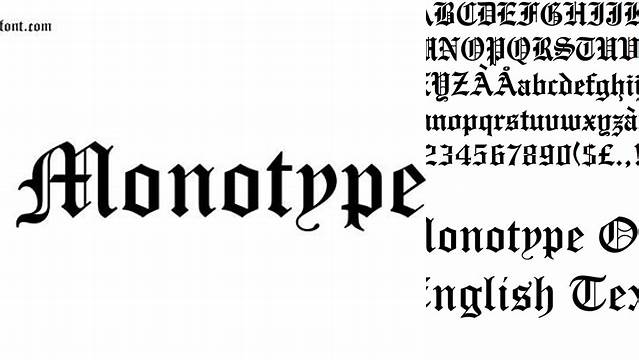
Let's dive into the world of Old English Monotype font, guys! This font is a classic, known for its elegant and historical feel. It's perfect for adding a touch of sophistication to your projects. Whether you're working on invitations, posters, or even branding, understanding where to find it for free and how to use it effectively is super important. We're going to explore everything you need to know, from its history to practical applications. So, buckle up and let’s get started!
Monotype Old English Font: What Makes It Special?
What sets Monotype Old English apart? Well, it's the attention to detail and the historical accuracy that Monotype brings to the table. This isn't just another generic Old English font; it’s a carefully crafted typeface designed to evoke a specific era. Understanding its nuances can help you use it more effectively. From the weight of the strokes to the curves of the letters, every element is designed with purpose. We’ll look at some of these details and how they contribute to the overall aesthetic. Using Monotype Old English can instantly add a sense of history and gravitas to your designs, making it ideal for projects that require a touch of tradition and elegance. The font's distinctive look makes it a popular choice for certificates, formal invitations, and even branding for businesses that want to convey a sense of heritage and quality. When used correctly, it can elevate your design and give it a unique and memorable appeal.
Old English Monotype Calligraphy: Mastering the Art
Want to take your Old English Monotype font skills to the next level? Why not try calligraphy? This section will introduce you to the basics of Old English calligraphy and how to achieve that beautiful, hand-lettered look. We'll cover the tools you need, the techniques to master, and some tips for practicing. While calligraphy takes time and patience, the results are well worth the effort. Imagine creating stunning invitations, personalized cards, or even framed artwork using your newfound skills. Start with basic strokes and gradually work your way up to more complex letterforms. Using guidelines and practice sheets can help you maintain consistency and accuracy. Experiment with different pen nibs and inks to find the style that suits you best. Calligraphy is not just about writing; it's about creating art with letters. So, take your time, be patient, and enjoy the process of mastering this beautiful and timeless art form.
Free Old English Fonts for Commercial Use
Looking to use free Old English fonts for your business? This section is crucial. We'll dive into finding fonts that are licensed for commercial use, so you don't run into any legal issues. We'll discuss what to look for in a font license and where to find fonts that allow you to use them in your logos, marketing materials, and other commercial projects. Remember, just because a font is free doesn't mean you can use it for anything. Always check the license agreement to ensure you are complying with the terms. Websites like Font Squirrel and Google Fonts offer a variety of fonts with commercial licenses. Before downloading, carefully review the license details to ensure it covers your intended use. Some licenses might require you to credit the font designer, while others might have restrictions on modifying the font. Using fonts legally protects you from potential legal issues and ensures you are respecting the rights of the font creator. When in doubt, it's always best to obtain a commercial license to ensure you have the freedom to use the font in any way you need for your business.
Old English Monotype Font Alternatives
Maybe Old English Monotype font isn't quite what you're looking for? No problem! We'll explore some similar fonts that offer a similar aesthetic but with their own unique twists. These alternatives can be great if you're looking for something a little different or if you can't find a free version of Old English Monotype that meets your needs. We'll cover a range of fonts, from those that are very similar to those that offer a more modern take on the classic Old English style. Consider fonts like Gothica, Cloister Black, or Blackletter for similar styles. Each of these fonts has its own unique characteristics that can add a different flavor to your design. Gothica, for example, is known for its bold and dramatic letterforms, while Cloister Black offers a more refined and elegant look. Blackletter fonts, in general, are a great alternative if you're looking for a font with a historical feel. Experiment with different fonts to find the one that best suits your project and your personal style. Remember, the key is to choose a font that is both visually appealing and readable, ensuring your message is clear and effective.
Old English Font Monotype: Pairing with Other Fonts
Tips for Using Old English Monotype Font Effectively
To maximize the impact of Tips for Using Old English Monotype Font Effectively, it's essential to follow a few key guidelines. This section will provide practical tips and advice on how to use the font in a way that is both visually appealing and effective in conveying your message. We'll also discuss common mistakes to avoid and best practices for font selection and usage. Use the font sparingly, focusing on headings or important details. Pair the font with a simple, clean sans-serif font for body text. Choose a font size that is appropriate for the context and ensures readability. Adjust the spacing between letters and lines to create a visually appealing and balanced design. Use color to highlight the font and make it stand out. Avoid using overly ornate or complex versions of the font, as they can be difficult to read. Ensure that the font is legible at different sizes and in different contexts. By following these tips, you can use Old English Monotype effectively and create designs that are both beautiful and impactful. Remember, the key is to use the font judiciously and in a way that complements the other design elements.